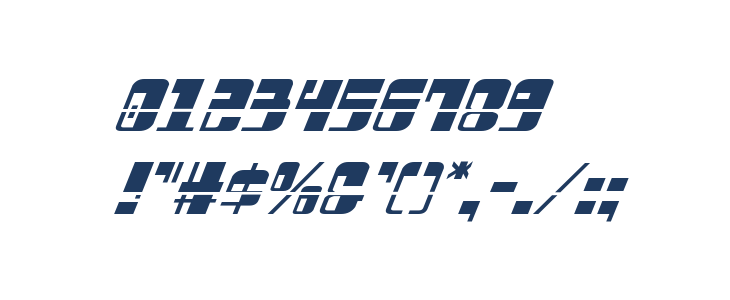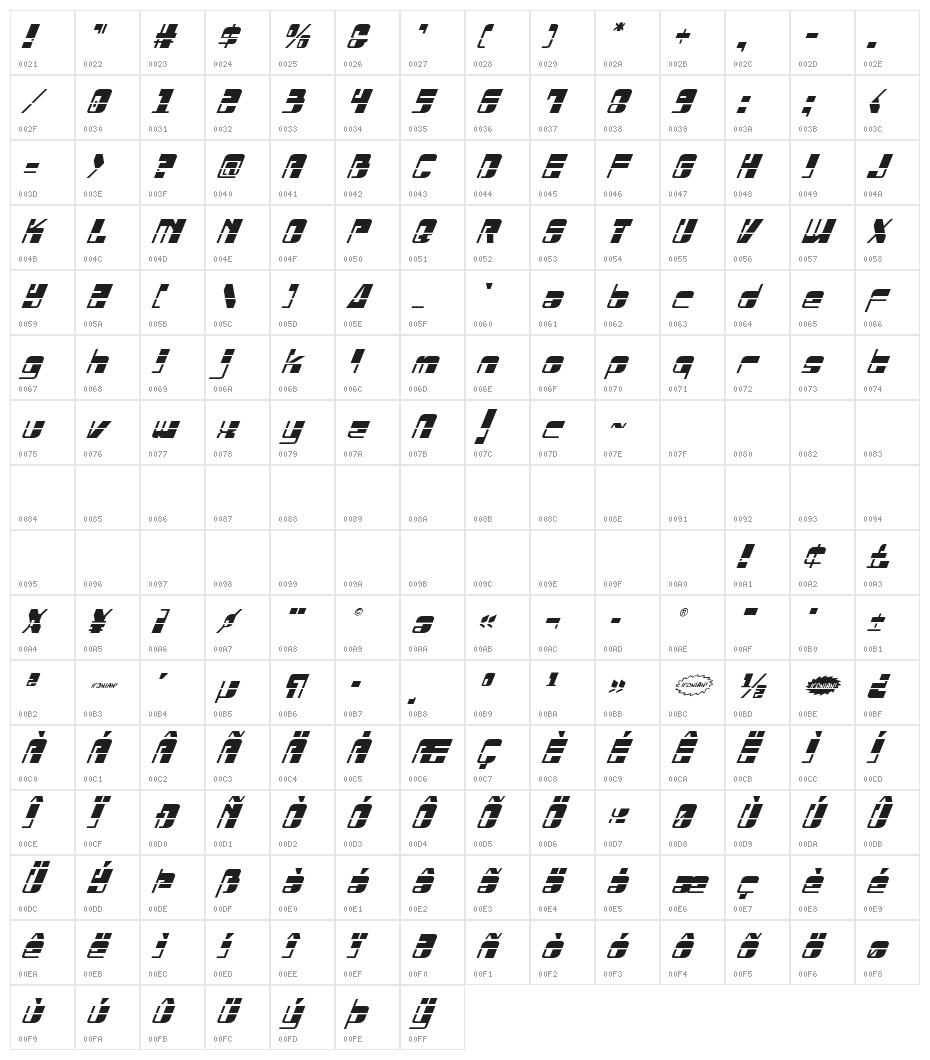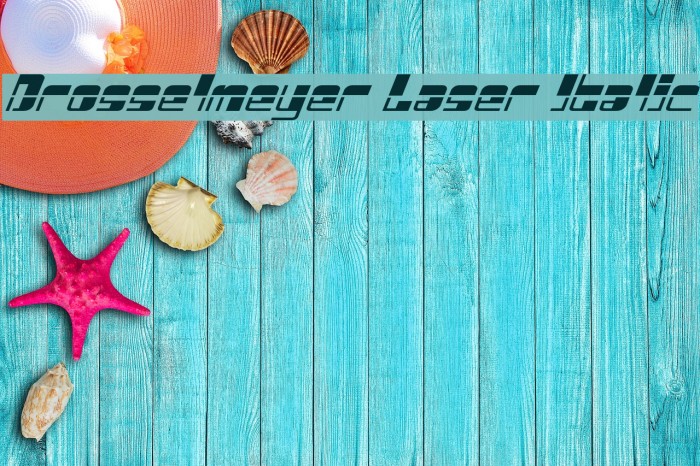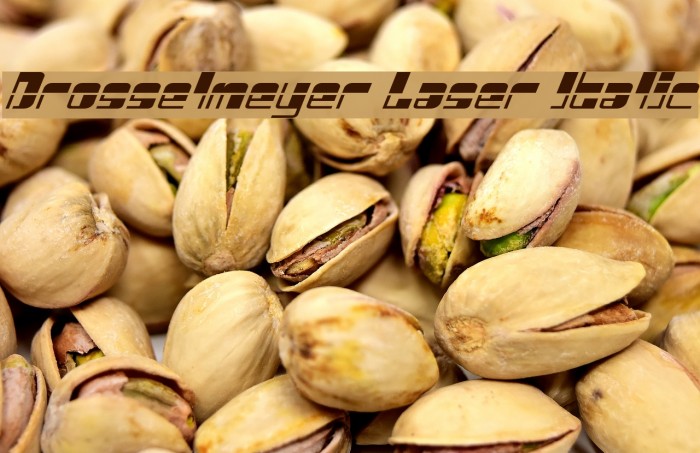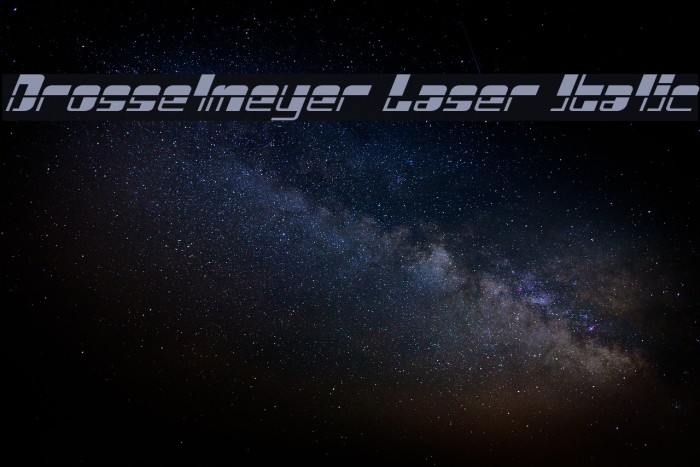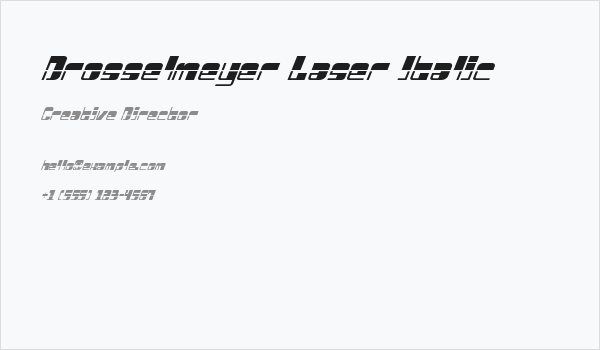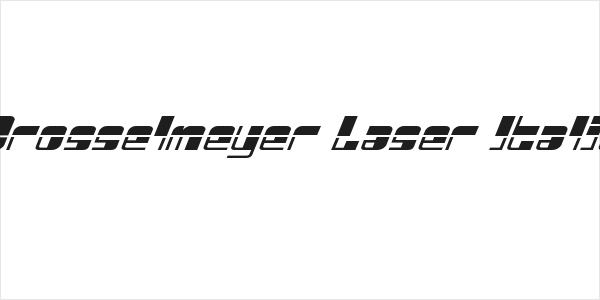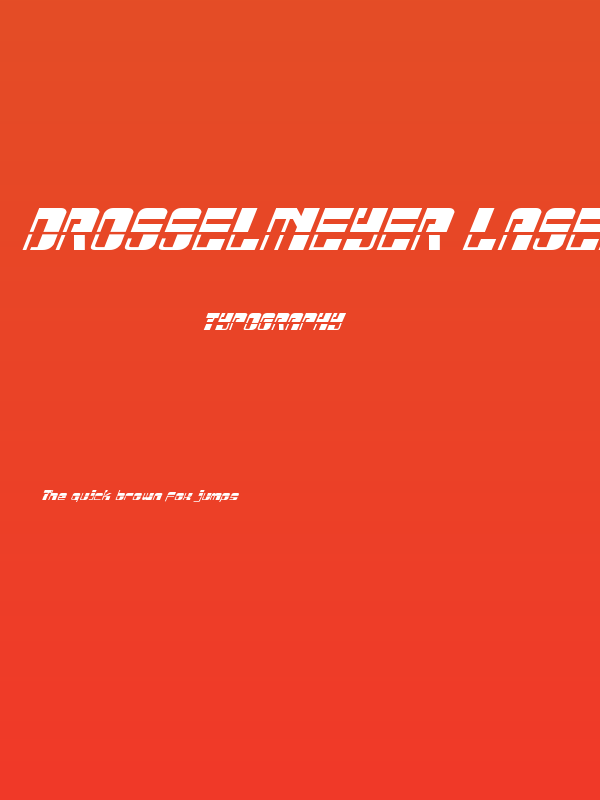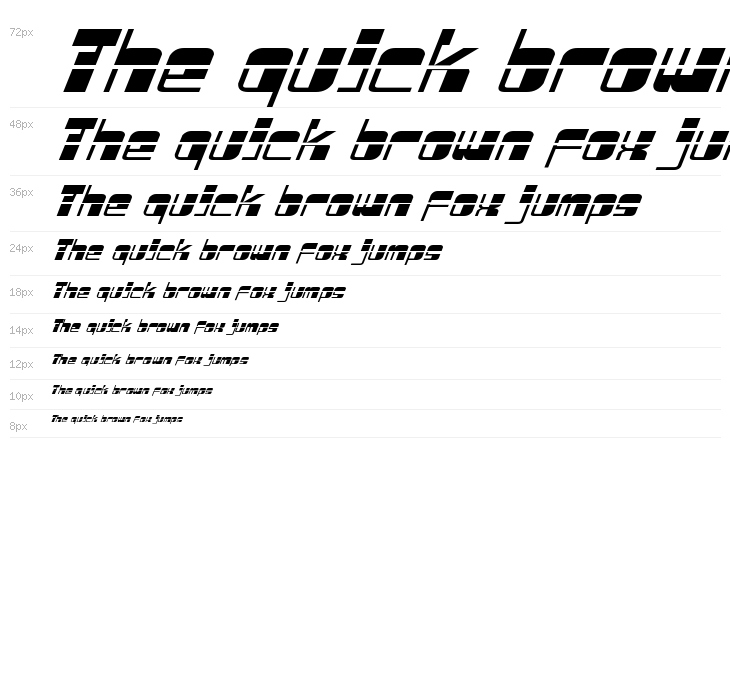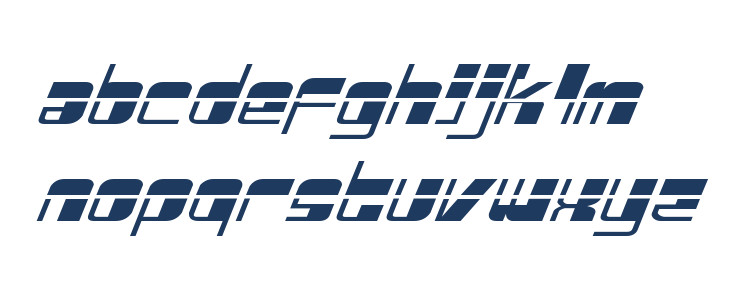
Drosselmeyer Laser Italic Font
Drosselmeyer Laser Italic Description
This font features a futuristic and dynamic design with sharp, angular lines and a distinct italic slant. The characters are bold and geometric, creating a sense of speed and movement. The uppercase and lowercase letters maintain a consistent style, with some characters having unique cutouts and angles that add to the modern aesthetic. The numbers and special characters follow the same design principles, ensuring uniformity across all glyphs. This font is ideal for projects that require a bold and eye-catching typeface with a modern, technological feel.
| Proposed Projects | Ideal for sci-fi themed designs, technology branding, video game titles, and futuristic posters. |